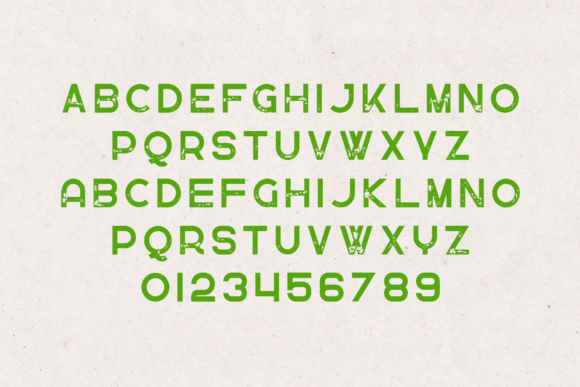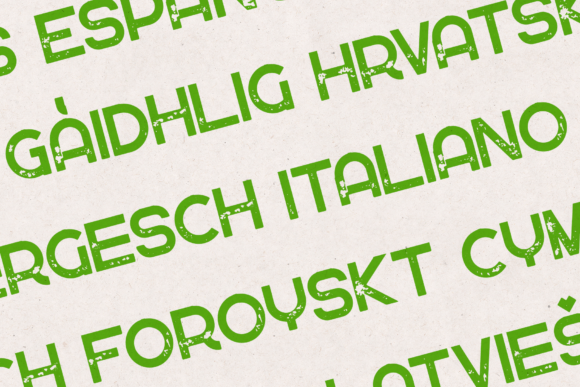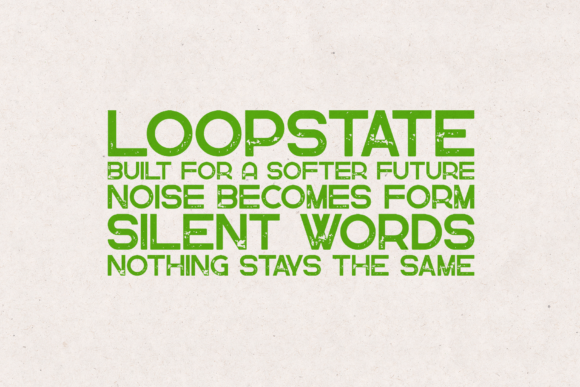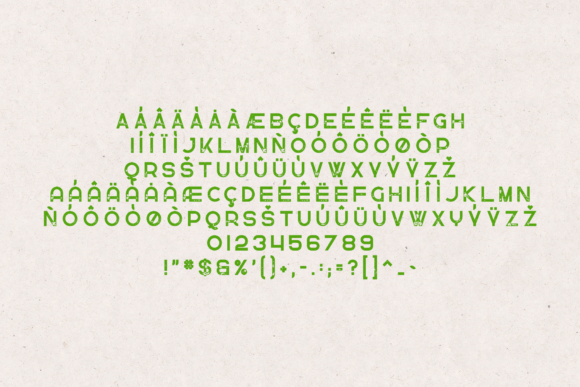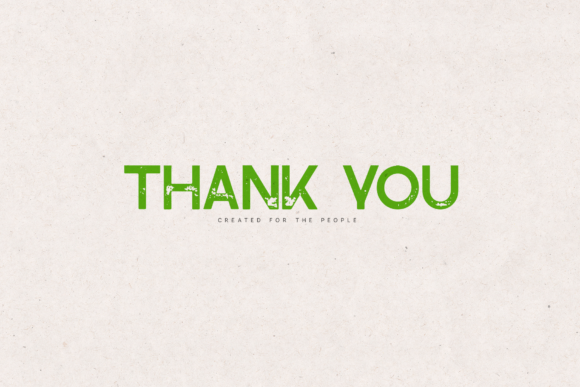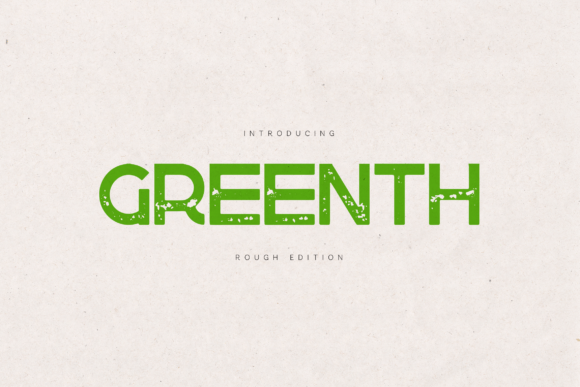
Introducing Greenth Font: The Ultimate Choice for Bold and Industrial Designs
Are you looking for a font that exudes confidence and strength? Do you want to make a statement with your designs? Look no further than Greenth Font, a heavy industrial sans serif font that is perfect for creating bold and eye-catching designs. In this article, we’ll dive into the features and benefits of Greenth Font, and explore how it can elevate your designs to the next level.
A Font with a Worn-In Attitude
Greenth Font is a game-changer in the world of typography. With its strong geometric structure and layered organic rough details, it delivers impact without losing clarity. This font is not subtle; it’s direct, confident, and street-aware. The textured, worn-in attitude of Greenth Font gives it a unique personality that is reminiscent of ink on recycled paper or paint on concrete.
Key Features of Greenth Font
So, what makes Greenth Font so special? Here are some of its key features:
- Solid, modern sans-serif construction: Greenth Font is built with a strong foundation that provides a clean and modern look.
- Balanced proportions for strong readability: The font’s proportions are carefully crafted to ensure that it remains readable even at large sizes.
- Carefully crafted rough texture (not random noise): The texture of Greenth Font is meticulously designed to add depth and character to your designs.
- Controlled distress for professional results: The distressed look of Greenth Font is carefully controlled to ensure that it looks professional and polished.
The Benefits of Greenth Font’s Texture
The texture of Greenth Font is one of its standout features. Unlike other fonts that have a texture overlaid on top of the letterforms, Greenth Font’s texture is integrated directly into the font. This means that it prints cleanly and scales beautifully without becoming messy. Whether you’re designing a streetwear brand, a craft beer label, or a music poster, Greenth Font’s texture will add a level of depth and interest to your design.
Greenth Font is a versatile font that is perfect for a wide range of design projects, including:
- Streetwear branding: Greenth Font’s bold and confident personality makes it a perfect fit for streetwear brands.
- Skate & urban culture: The font’s street-aware attitude and rough texture make it a great choice for skate and urban culture designs.
- Craft beer labels: Greenth Font’s industrial look and feel make it a great choice for craft beer labels.
- Music posters: The font’s bold and eye-catching personality makes it perfect for music posters.
- Packaging design: Greenth Font’s unique texture and industrial look make it a great choice for packaging design.
- Merchandise: The font’s bold and confident personality makes it perfect for merchandise designs.
- Sustainable brands: Greenth Font’s eco-friendly vibe and industrial look make it a great choice for sustainable brands.
- Eco projects: The font’s environmentally-friendly personality makes it perfect for eco projects.
- Event graphics: Greenth Font’s bold and eye-catching personality makes it a great choice for event graphics.
- YouTube thumbnails: The font’s unique texture and industrial look make it perfect for YouTube thumbnails.
- Editorial headlines: Greenth Font’s bold and confident personality makes it a great choice for editorial headlines.
What Makes Greenth Font Different
So, what sets Greenth Font apart from other fonts? Here are a few things that make it unique:
- Most rough fonts look chaotic or overly destroyed: Unlike other rough fonts, Greenth Font’s texture is carefully controlled to ensure that it looks professional and polished.
- Unique texture: Greenth Font’s texture is one-of-a-kind and adds a level of depth and interest to your designs.
- Industrial look and feel: The font’s industrial look and feel make it perfect for designs that require a bold and confident personality.
In conclusion, Greenth Font is a game-changing font that is perfect for designers and crafters who want to create bold and eye-catching designs. With its strong geometric structure, layered organic rough details, and carefully crafted texture, Greenth Font delivers impact without losing clarity. Whether you’re designing a streetwear brand, a craft beer label, or a music poster, Greenth Font is the perfect choice. So why wait? Try Greenth Font today and take your designs to the next level!